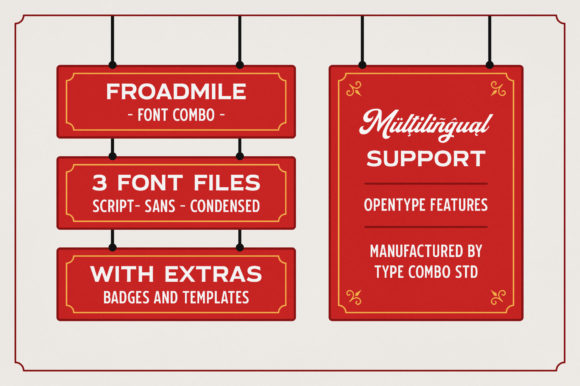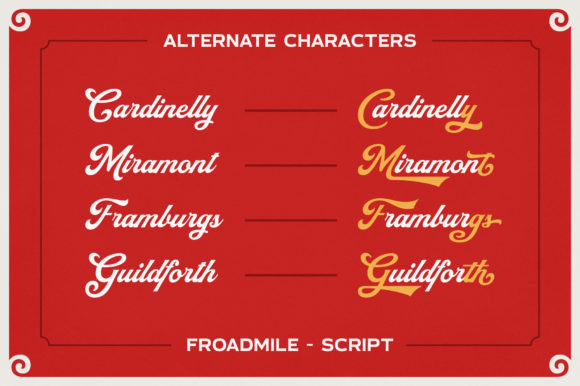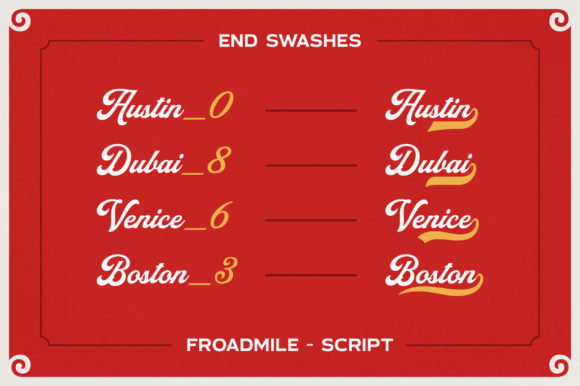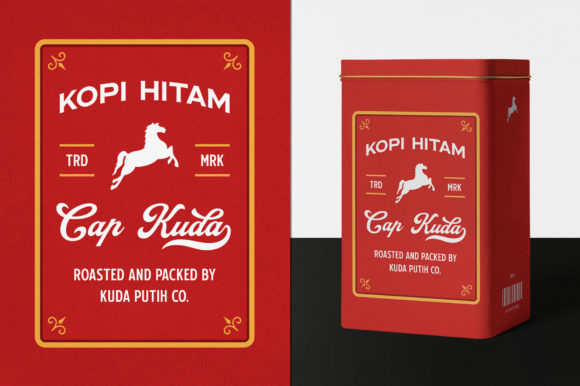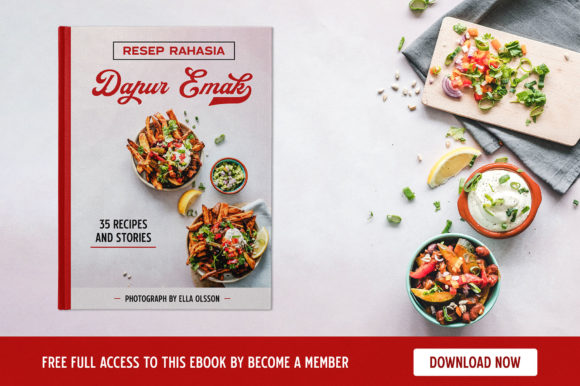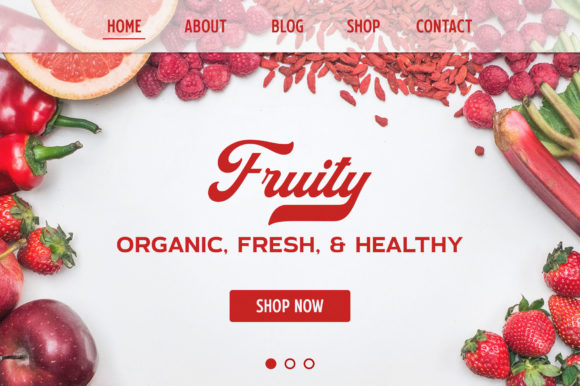
Froadmile Font: The Ultimate Display Font for Stunning Designs
Are you tired of using the same old fonts for your designs? Look no further than Froadmile Font, a cute and unique display font that’s taking the design world by storm. With its incredibly stylish look, Froadmile is perfect for creating gorgeous and timeless designs that will leave a lasting impression.
What Makes Froadmile Font So Special?
Froadmile Font is a one-of-a-kind display font that’s designed to make your designs stand out from the crowd. Its unique and stylish look is perfect for a wide range of design projects, from logos and quotes to invitations and business cards. Whether you’re a professional designer or a crafty DIY enthusiast, Froadmile Font is sure to become your go-to font for all your design needs.
Endless Design Possibilities with Froadmile Font
One of the best things about Froadmile Font is its versatility. This amazing font can be used for a wide range of design projects, including:
- Logos: Create a stunning logo for your business or brand with Froadmile Font.
- Quotes: Add a touch of elegance and sophistication to your quotes with Froadmile Font.
- Invitations: Make your invitations truly special with Froadmile Font’s unique and stylish look.
- Business Cards: Stand out from the crowd with Froadmile Font’s incredibly stylish look.
- Power Point Presentations: Add a touch of class and sophistication to your presentations with Froadmile Font.
Why Choose Froadmile Font?
So why choose Froadmile Font over other display fonts? Here are just a few reasons why Froadmile Font is the perfect choice for designers and crafters:
- Unique and Stylish Look: Froadmile Font has an incredibly stylish look that’s sure to turn heads.
- Versatile: Froadmile Font can be used for a wide range of design projects, from logos and quotes to invitations and business cards.
- Timeless Designs: With Froadmile Font, you can create gorgeous and timeless designs that will never go out of style.
Tips for Using Froadmile Font
Here are a few tips for using Froadmile Font to create stunning designs:
- Experiment with Different Sizes: Froadmile Font looks great in a variety of sizes, so don’t be afraid to experiment and find the perfect size for your design.
- Pair with Other Fonts: Froadmile Font pairs well with other fonts, so try pairing it with a complementary font to add depth and interest to your design.
- Use it for Headlines: Froadmile Font is perfect for headlines, so use it to add a touch of elegance and sophistication to your designs.